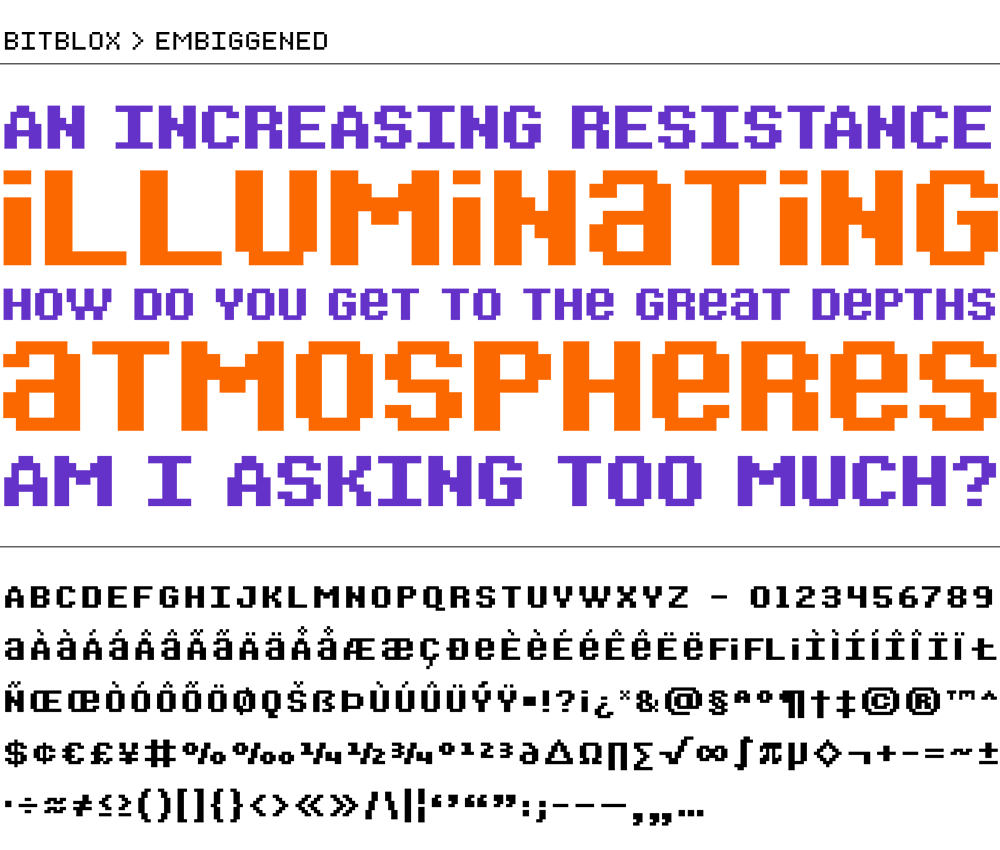
Bitblox Embiggened Font
We originally created these fonts for our Bitblox alphabet blocks. They were inspired by the low-res pixel lettering seen on the computer screens and in video games of yore. This font is guaranteed to induce flashbacks in anyone who’s been exposed to consoles / terminals / IBM / DOS / AS/400 graphics in the olden days.
Great for both display, print and screen-work, but ultimately just plain-old fun to play with (much like our alphabet blocks).
The Complete Bitblox typeface includes:
REGULAR is the basic type, the vanilla flavor of the group.
OUTLINE layers up with the Stackable style to create fun two-tone type!
DIMENSIONAL has a built in drop-shadow to give it a 3D POP!
EMBIGGENED is a the chunky bold weight, and it packs a punch.
MONOSPACE is a tabular version of the original Vanilla style. Robots (and robot programmers) like this style the best.
BLOCKED encloses each glyph in a cozy pixel-block.
DINGBATS is a complete collection of our nostalgically crafted symbols.
STACKABLE is a the basic type optimized for stacking with Outlined, and Dimensional. Allowing you to create colorful color-ways that are perfectly aligned.